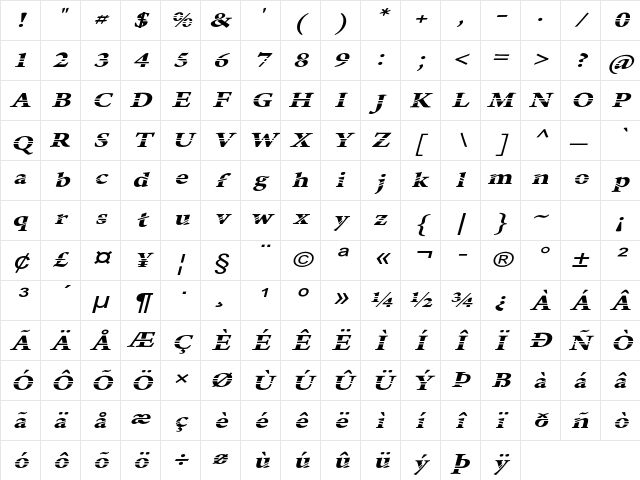
Manasmo Expanded Italic
Style: Expanded Italic
Manasmo Family
Manasmo Expanded Italic
Complete Manasmo Expanded Italic glyph index. Displaying only characters natively supported by Manasmo Expanded Italic font.
Design Context for Manasmo
Manasmo is a composed and adaptable typeface that performs quietly and consistently across a wide range of design contexts. The slanted form adds forward momentum and visual energy.